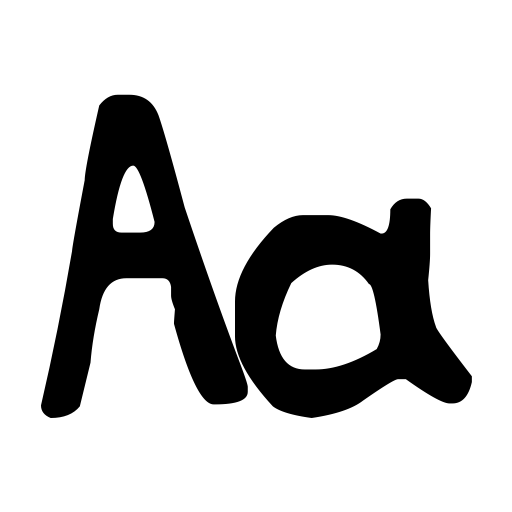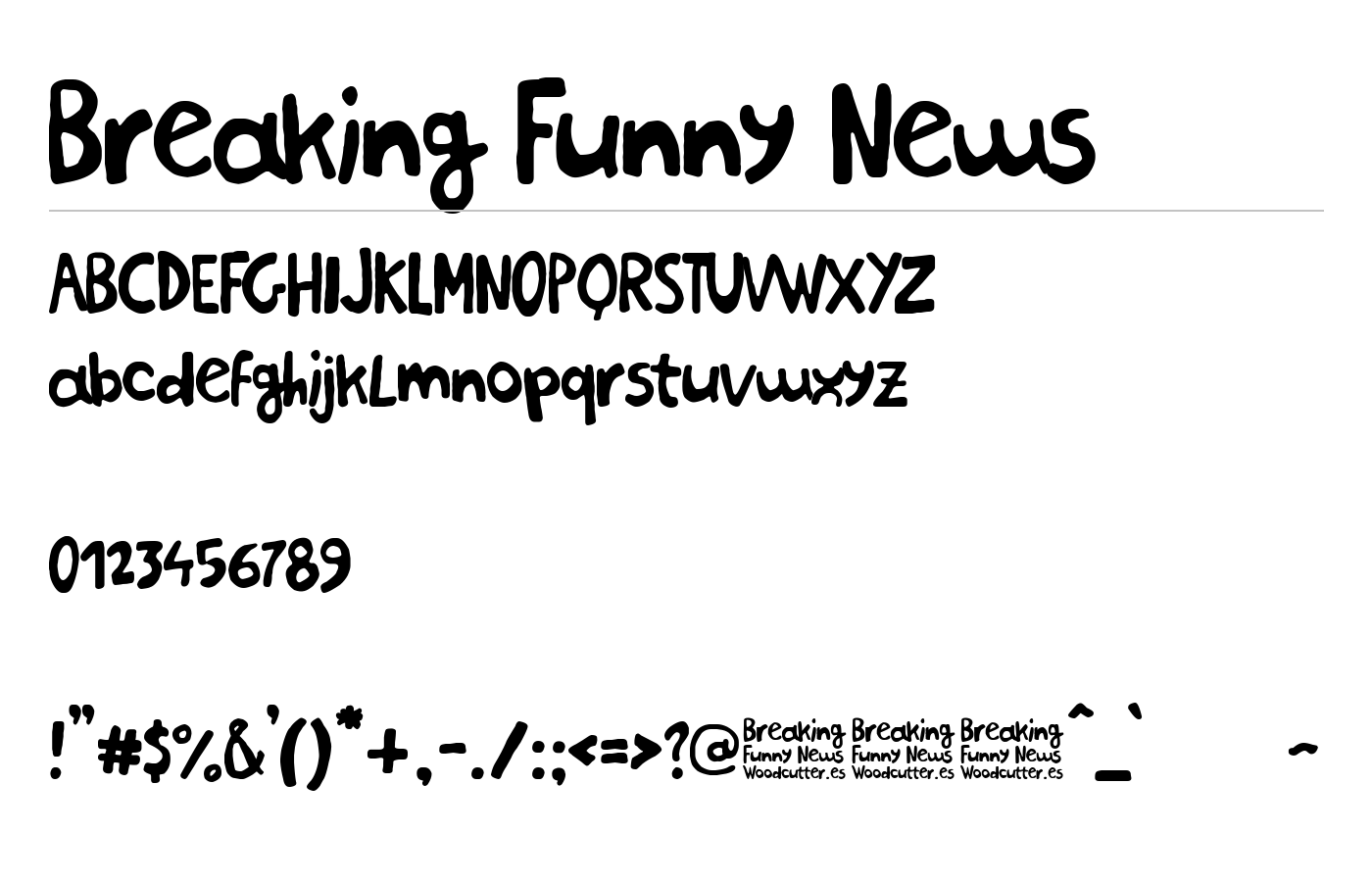
Breaking Funny News is a playful sans serif font with a hand-drawn, casual feel that mimics natural handwriting. Its irregular, slightly chunky letterforms and lively shapes give it a quirky and approachable personality, making it ideal for informal designs, children's media, or fun, lighthearted branding that wants to connect with audiences in a friendly, upbeat way. This font works best in headlines, posters, and creative projects where a relaxed and humorous tone is desired.
Breaking Funny News Font
About Breaking Funny News Font
| Font family | Breaking Funny News Font |